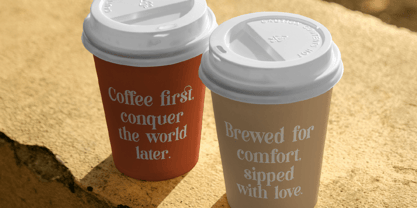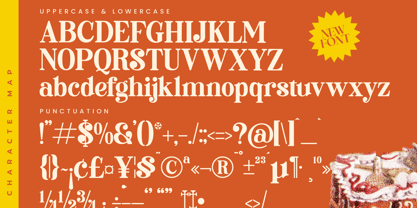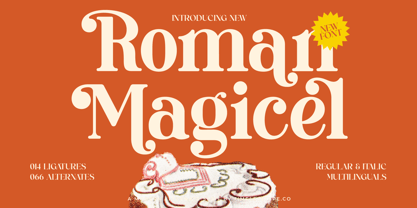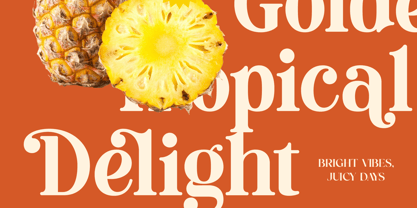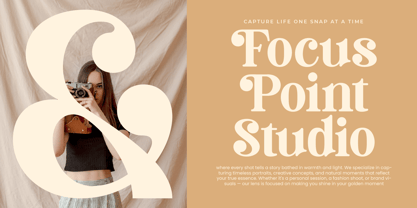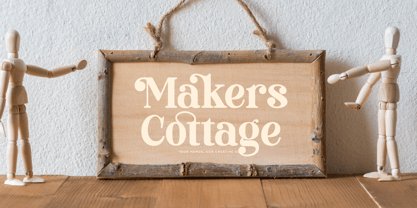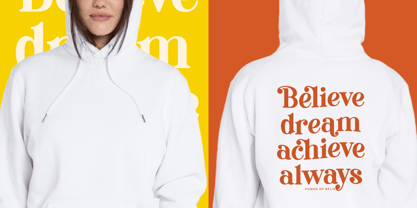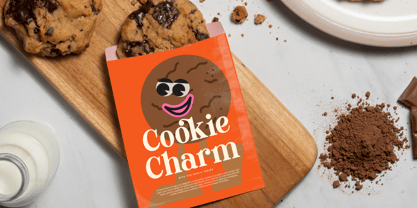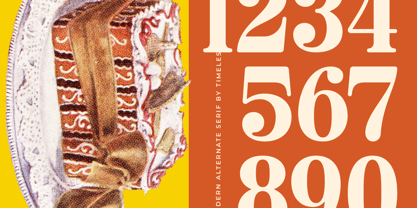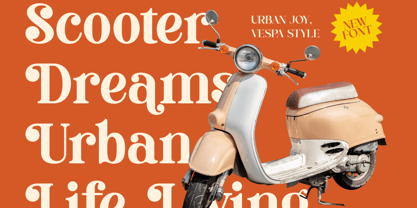
Roman Magicel
por Timelesstype Studio
La familia tipográfica Roman Magicel fue diseñada por Heru Utama Putra y publicada por Timelesstype Studio. Roman Magicel contiene 2 estilos y opciones de paquete familiar.
Roman Magicel - Modern Alternate Serif , from Timelesstype, Suitable for any projects such as: logos, branding projects, homeware designs, product packaging, mugs, quotes, posters, shopping bags, t-shirts, book covers, name card, invitation cards, greeting cards, label, photography, watermark, special events, and all your other luxury and beautiful projects that need a Luxury Serif taste.